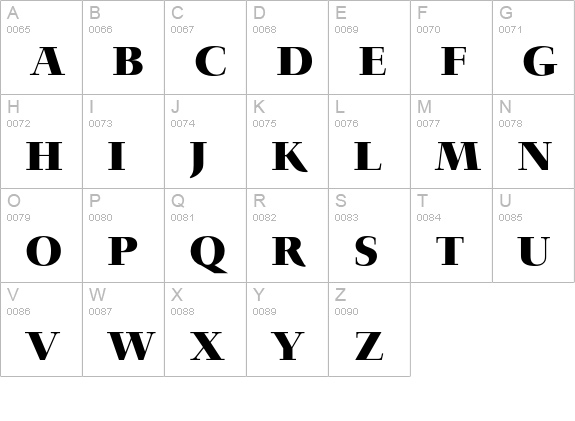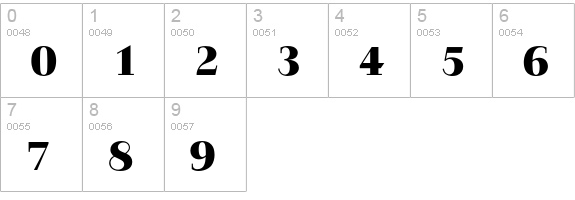
Jaeger-Antiqua R Font Details
Jaeger-Antiqua R is a captivating and timeless font that exudes elegance and sophistication. With its classic serifs and refined letterforms, this font effortlessly combines tradition with modernity, making it the perfect choice for a range of design projects. With its clean and legible appearance, Jaeger-Antiqua R lends itself beautifully to both print and digital mediums. Whether used in headlines, body text, or even logos, its versatility is truly unmatched. Its balanced proportions and graceful curves create a harmonious and pleasing visual experience for the reader. The attention to detail in Jaeger-Antiqua R is evident in every character. Each letter has been meticulously crafted to ensure precision and readability, resulting in a seamless and polished final product. The carefully designed serifs add a touch of sophistication, elevating any design it is used in. What makes Jaeger-Antiqua R even more appealing is the fact that it is freely available to download at FontsMarket.com. This means that designers and typographers can access this exceptional font without any cost, making it an invaluable resource for both personal and commercial projects. Whether you are a seasoned designer or just starting out, Jaeger-Antiqua R is the perfect font to add to your collection. Its timeless charm, versatility, and free availability make it a must-have for anyone looking to elevate their design work to the next level. So why wait? Download Jaeger-Antiqua R today and unlock a world of creative possibilities.